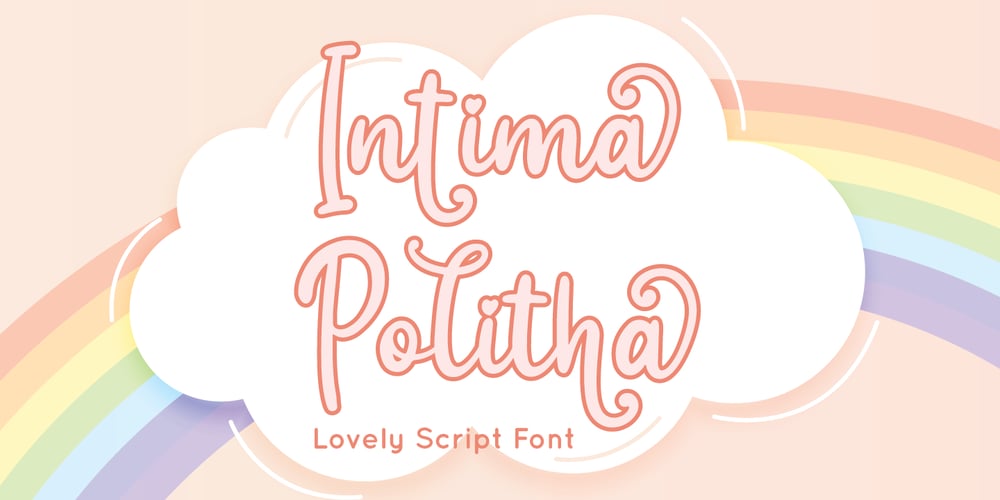
Intima Politha
Intima Politha font
Intima Politha Font Family was designed by Fadli Ramadhan Iskandar and published by Attype Studio. Intima Politha contains 1 styles and family package options. Intima Politha is a lovely script font with stylistic set and alternates. Fall in love with its incredibly versatile style and use it to create spectacular designs!Intima Politha is perfect for branding, logo, invitation, quotes, apparel design, product packaging, merchandise, game titles, cute style design, Book/Cover Title and more.What’s Included :- Ending Swash- Multilingual Support —Hope you enjoy with our font!Attype Studio